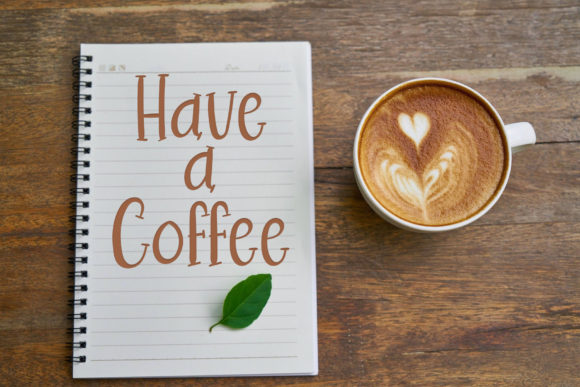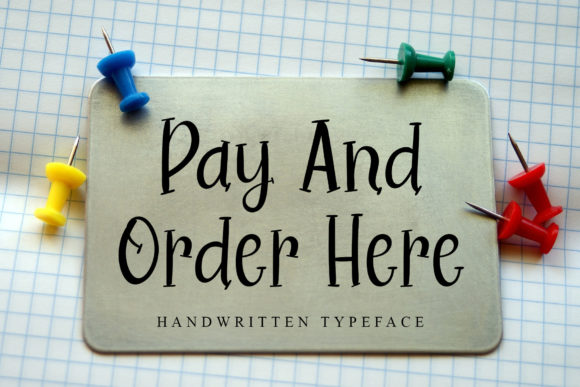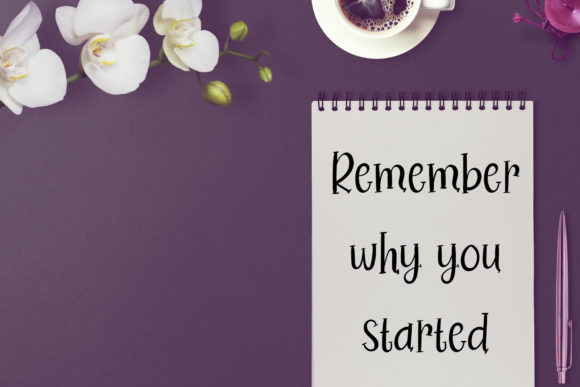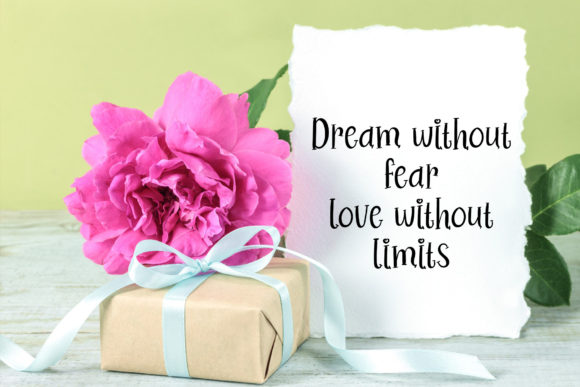
The Perfect Blend of Handwritten Charm
Have you ever found yourself rummaging through your grandmother’s attic, unearthing old letters and cards, and wondering how to capture that same sense of warmth and personality in your designs? For designers, the quest for the perfect font can be a daunting task. That’s where the Brownie Cookie Font comes in – a unique and elegant typeface that adds a touch of handwritten charm to any project.
This beautiful font is perfect for wedding invitations, greeting cards, billboards, logos, business cards, and any other design that requires a personal touch. Its varied baseline, crafted with a natural, hand-made feel, sets it apart from other fonts on the market. Whether you’re a seasoned pro or just starting out, the Brownie Cookie Font is a valuable addition to any designer’s toolkit.
- Unique Characteristics: Features a unique, hand-drawn design with a distressed texture, giving it a warm and inviting feel.
Brownie Cookie Font Review
Overall, the Brownie Cookie Font has some great qualities that make it stand out, but it also has some limitations that prevent it from being a top choice for designers. Here’s my honest review:
- The font’s playful, whimsical feel makes it perfect for food-related designs, especially desserts like brownies and cookies.
- The font is highly customizable, allowing designers to adjust the size, color, and spacing to fit their design needs.
- The font includes a variety of weights and styles, making it suitable for a range of design projects.
- The font may be too cutesy for more serious design projects, which could detract from the overall professionalism of the design.
- The font’s characters may not be suitable for body text, as they can be difficult to read in larger quantities.
The Brownie Cookie Font is a fun, playful font that’s perfect for food-related designs or projects that need a whimsical touch. However, it may not be the best choice for more serious design projects or those that require a clean, professional look. With its high level of customization and variety of weights and styles, it’s a solid choice for designers who want to add a little personality to their designs.
The Brownie Cookie Font is ideal for baking and food-related businesses, as well as for creating playful and whimsical designs.